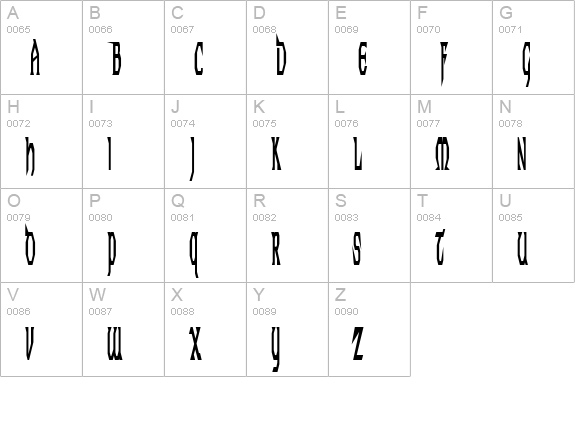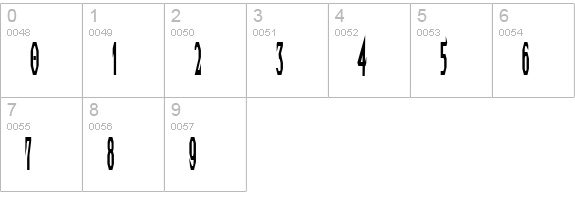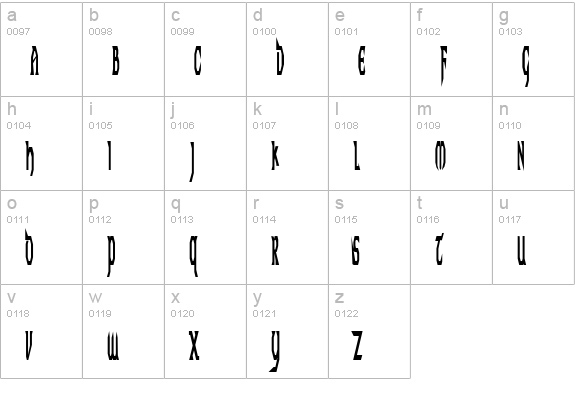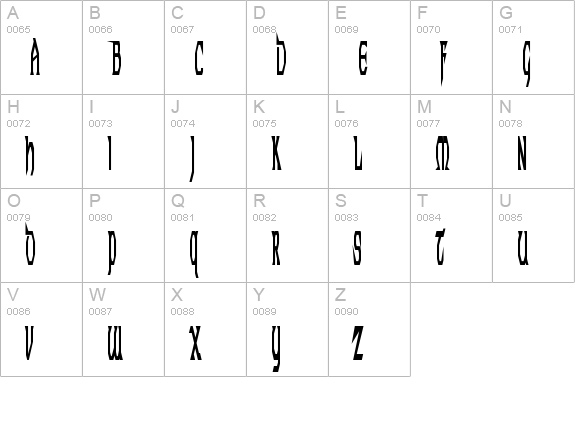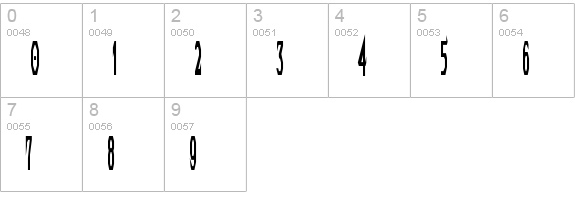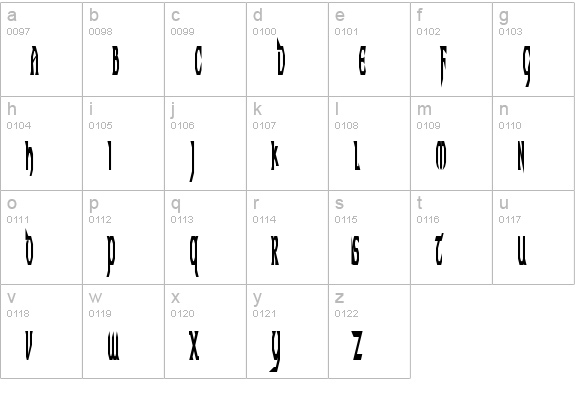
Introducing Techno Longer, a sleek and futuristic font that will instantly bring a modern touch to any project. With its elongated and edgy letterforms, this font is perfect for those seeking a bold and dynamic design. Whether you're working on a high-tech website, a cutting-edge logo, or a futuristic poster, Techno Longer will make your text stand out and captivate your audience. One of the best things about Techno Longer is that it is freely available to download at FontsMarket.com. That's right, you can get this incredible font at absolutely no cost. This means that you can enhance your designs without breaking the bank. With Techno Longer, you'll have access to a high-quality and professionally designed font, without any financial burden. Not only is Techno Longer free, but it also offers a wide range of characters and ligatures, allowing for endless creativity and customization. From uppercase to lowercase, numbers to symbols, this font has it all. The clean lines and sharp angles of Techno Longer bring a sense of precision and sophistication to your text, making it the perfect choice for tech-related projects or any design that requires a futuristic touch. Whether you're a professional designer looking to add a unique flair to your work, or a hobbyist wanting to experiment with different typography styles, Techno Longer is the font for you. Its versatility and contemporary aesthetic make it suitable for a variety of applications, from branding and advertising to social media graphics and print materials. So, why wait? Download Techno Longer today from FontsMarket.com and unlock a world of design possibilities. With its sleek and modern design, this font is sure to elevate your creative projects to new heights. Don't miss out on this amazing opportunity to get a premium font for free. Embrace the future with Techno Longer and let your designs shine.